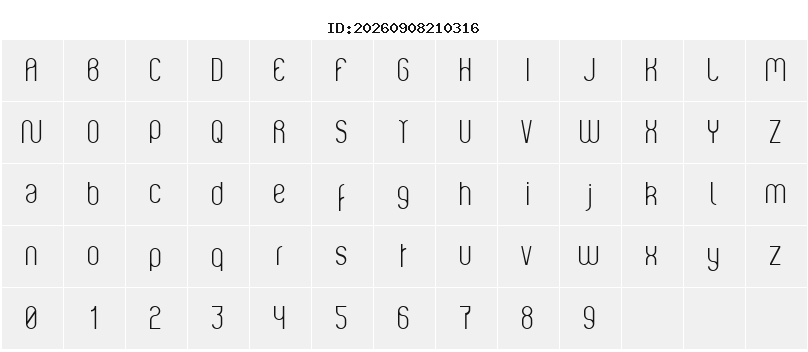
• Font Name: Violette
• Full Font Name: Violette
• PostScript Name: Violette
• Designer: Benoit Sjoholm
• Manufacturer: Beno”t Sj™holm
About Violette.ttf
Violette.ttf is a modern, elegant sans-serif font designed for ultimate readability and visual harmony. Perfect for branding, headlines, web design, and print materials.